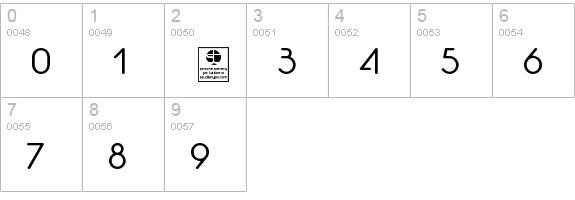
Akaju Light Font Details
Akaju Light is a refined, elegant variant in the Akaju typeface family \xE2\x80\x94 well suited to elegant body text, refined sub-headings, and luxury branding.
Akaju Light font is a stunning typeface that exudes elegance and sophistication. Its delicate and graceful letterforms make it a perfect choice for projects that require a touch of refinement. The slender strokes and clean lines of this font create a sense of lightness and airiness, making it ideal for titles, headings, and logos. One of the most remarkable features of Akaju Light font is that it is available for free. Yes, you read that right! This exquisite font can be downloaded at absolutely no cost from FontsMarket.com. Whether you are a professional designer or an amateur enthusiast, this font provides you with the opportunity to enhance your projects with a high-quality typeface without breaking the bank. Akaju Light font adds a touch of class and sophistication to any design. Its versatility allows it to be used in a variety of contexts, ranging from branding and advertising to editorial designs and invitations. The carefully crafted letterforms of Akaju Light font ensure legibility and readability, making it an excellent choice for both print and digital projects. With its timeless appeal and effortless elegance, Akaju Light font stands out from the crowd and adds a touch of class to any design. Its sleek and modern aesthetic makes it suitable for a wide range of applications, from corporate identities to wedding invitations. The free availability of this font at FontsMarket.com makes it accessible to all designers, helping them elevate their projects to new levels of sophistication and professionalism. In conclusion, Akaju Light font is a must-have for anyone looking to add a touch of refinement and elegance to their designs. Its delicate and graceful letterforms, combined with its free availability at FontsMarket.com, make it an excellent choice for all your typographic needs. Download Akaju Light font today and experience the beauty and versatility it brings to your projects.